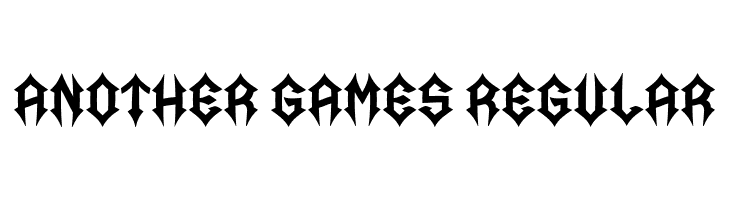
A bold, gothic-inspired font with sharp, angular lines and strong vertical emphasis.
A bold, gothic-inspired font with sharp, jagged edges and dynamic styling.
A bold, gothic-inspired font with sharp, angular edges and a dramatic aesthetic.
A bold, blackletter-inspired font with sharp, angular lines and a gothic aesthetic.
A bold, gothic-inspired font with sharp, angular edges and dramatic serifs.
A bold, gothic-inspired font with sharp, angular edges and intricate details.
A bold, intricate Gothic-style font with modern flair and dramatic curves.